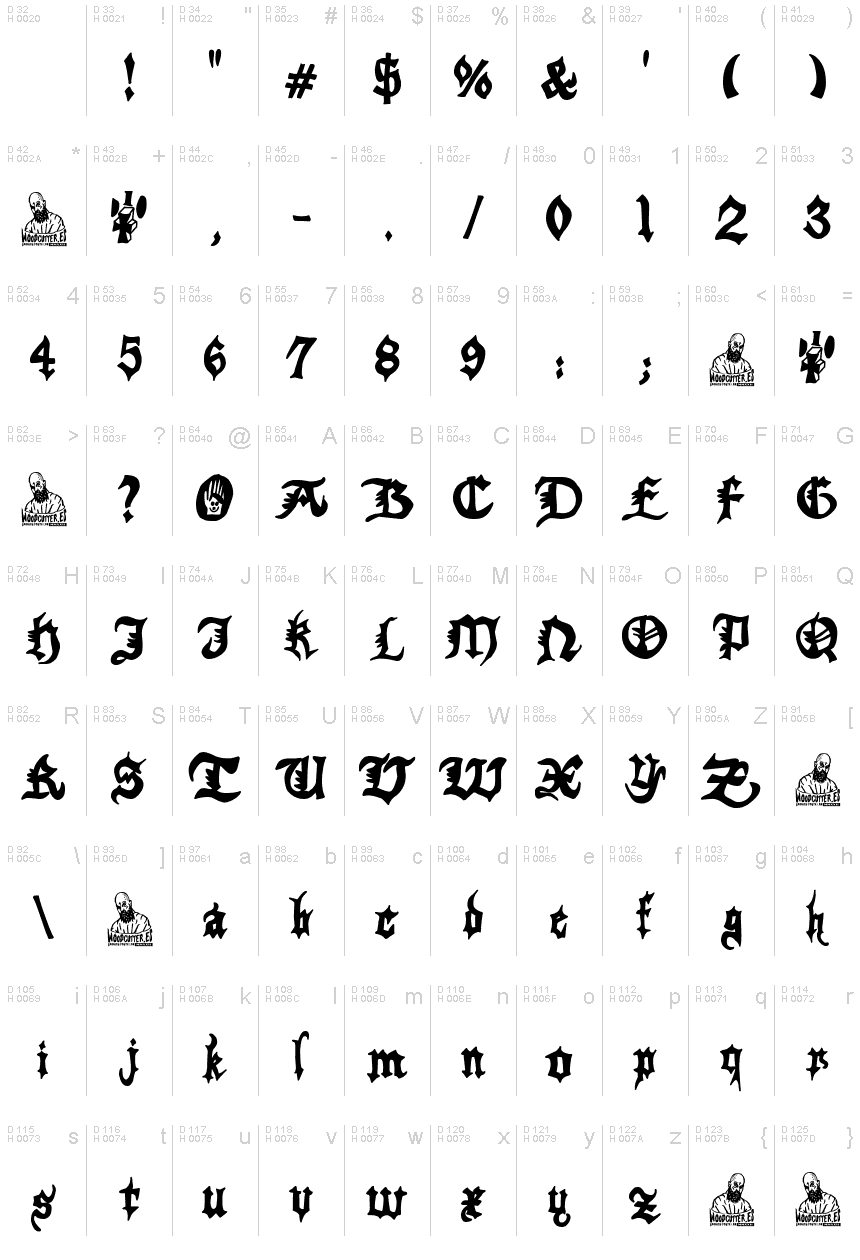
Gothicus Vulgaris
Gothicus Vulgaris, from the imaginative mind of Woodcutter, is a semi-bold typeface that seamlessly melds Gothic sensibilities with modern flair. This font stands as a testament to the timeless allure of Gothic typography while embracing contemporary design trends. Its robust and commanding character lends itself beautifully to a wide array of creative endeavors, from eye-catching branding to evocative editorial layouts.
The sharp angles and sturdy construction of Gothicus Vulgaris make it an ideal choice for projects requiring a touch of drama and sophistication. Whether it's gracing the cover of a novel, setting the tone for an avant-garde event invitation, or adding gravity to poster designs, this typeface promises to deliver striking visuals that captivate and resonate. Embrace the distinct personality of Gothicus Vulgaris for your next project and watch your creative vision come to life with unrivaled intensity.